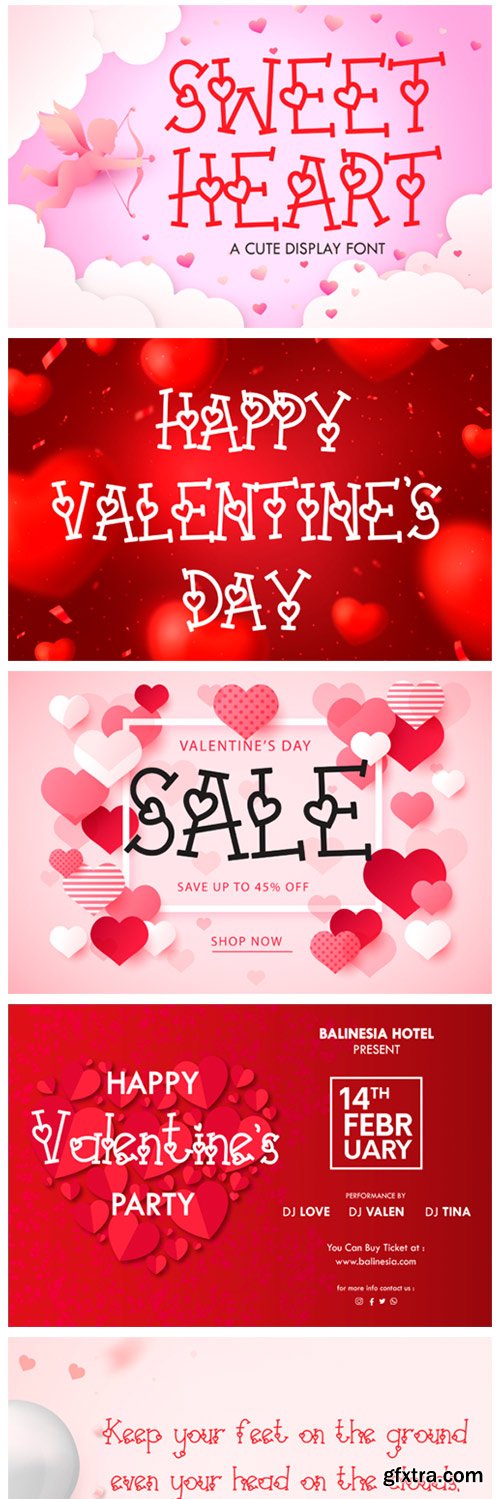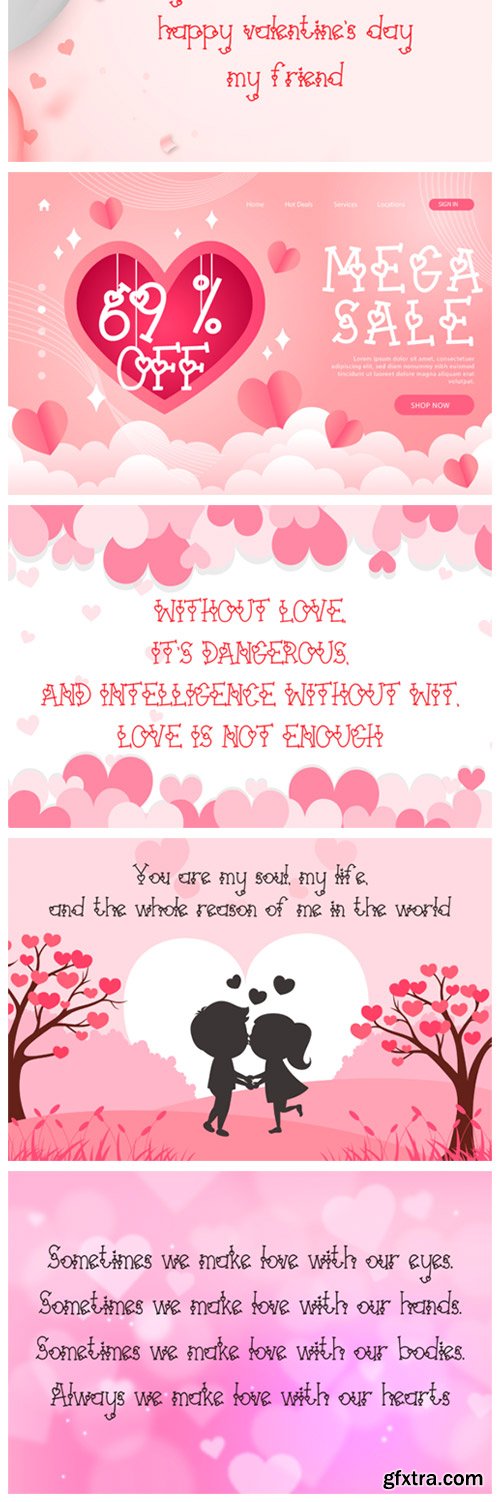
Sweetheart Font
Sweetheart is a romantic and magical display font featuring incredible heart-themed elements. It’s the perfect font for turning any Valentine’s Day craft into a piece of art.